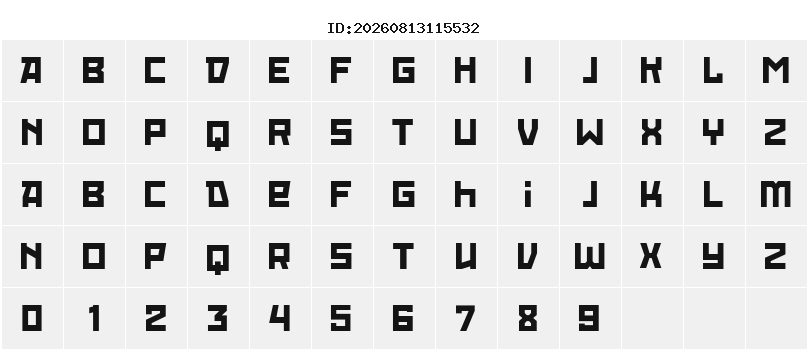
Red October Preview
• Font Name: Red October
• Font ID: IvanPhilipov: Red October: 2008
• Full Font Name: RedOctober
• Version: Version 1.004 2013
• PostScript Name: RedOctober
• Character Count: 225
• Copyright: Copyright (c) 2008 by Ivan Filipov, Neogrey Ltd. All rights reserved.
• Designer: Ivan Filipov
• Manufacturer: Ivan Filipov, Neogrey Ltd
About Red October.ttf
Red October.ttf is a modern, elegant sans-serif font designed for ultimate readability and visual harmony. Perfect for branding, headlines, web design, and print materials.